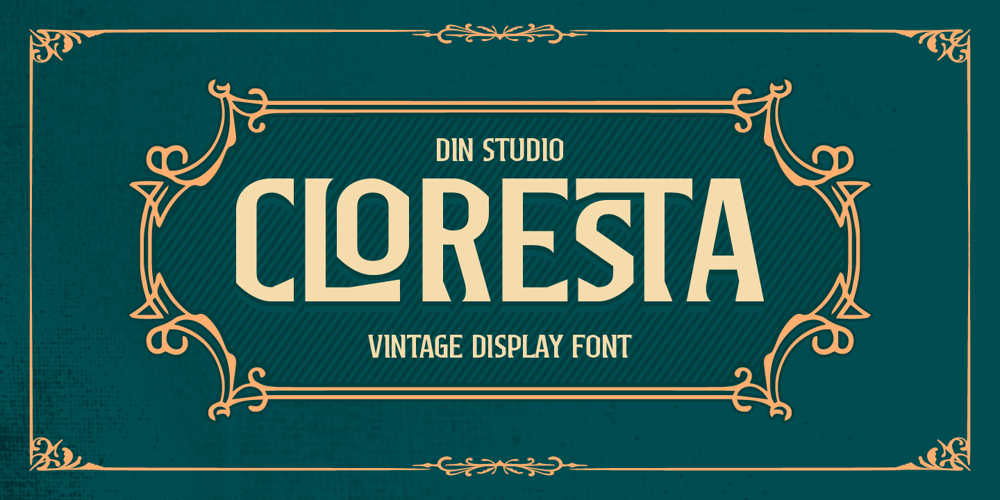
Cloresta Font Family was designed by Donis Miftahudin and published by Din Studio. Cloresta contains 1 styles and family package options. Introducing Cloresta, a captivating display font that brings vintage charm with a modern twist. Crafted in all uppercase letters, Cloresta presents a bold yet balanced thickness that commands attention without overwhelming your design. Its consistent letterforms and subtly rectangular shapes offer a unique blend of structure and elegance, creating a look that feels strong yet approachable. This font gives ornament sets as extra. In addition, enjoy the features here.Features: Ligatures Multilingual Supports PUA Encoded Numerals and Punctuations Cloresta fits in headlines, logos, posters, branding materials, packaging, print media, editorial layouts, and many more designs. Find out more ways to use this font by taking a look at the font preview.Thanks for purchasing our fonts. Hopefully, you have a great time using our font. Feel free to contact us anytime for further information or when you have trouble with the font. Thanks a lot and happy designing.